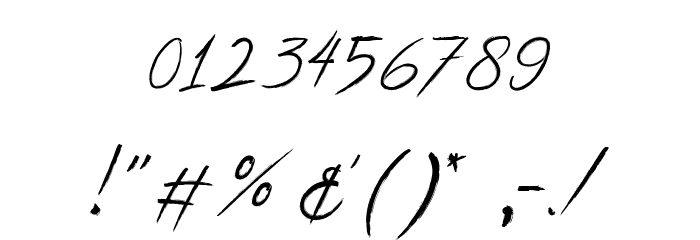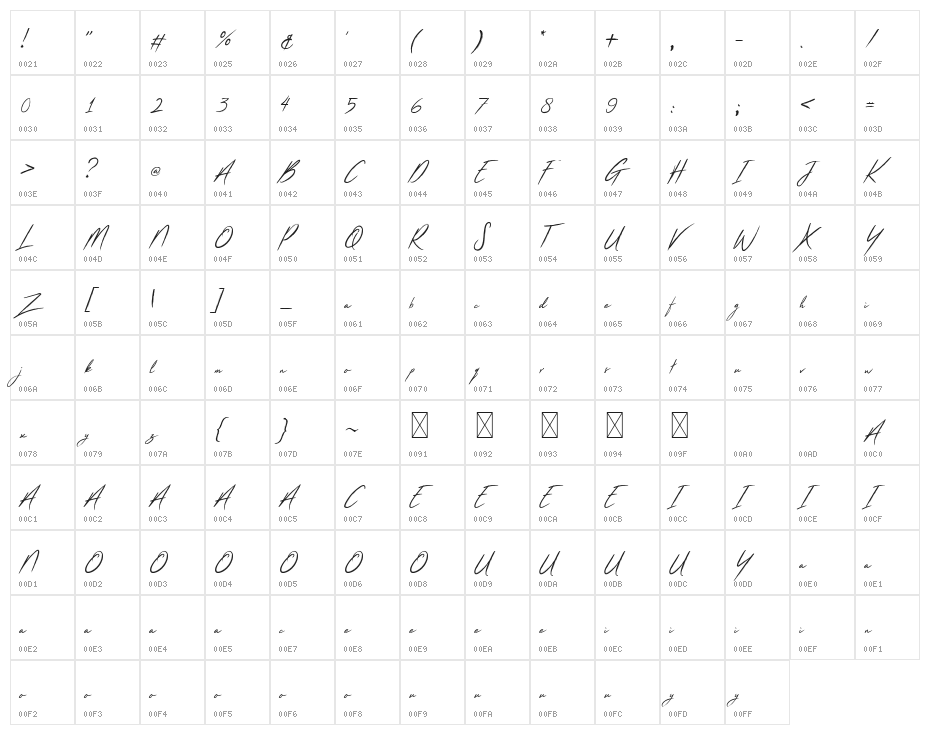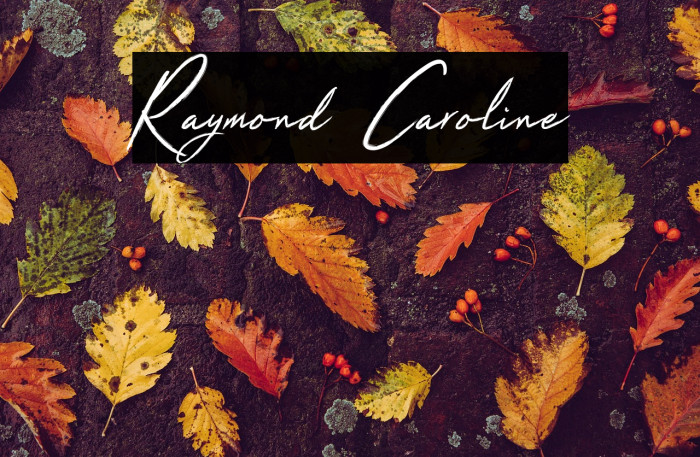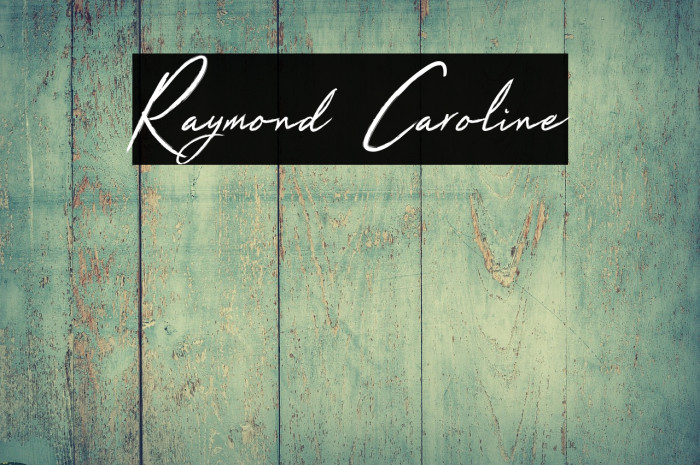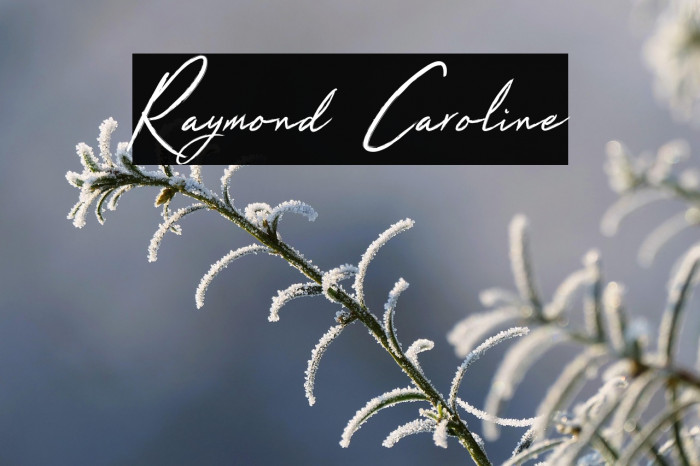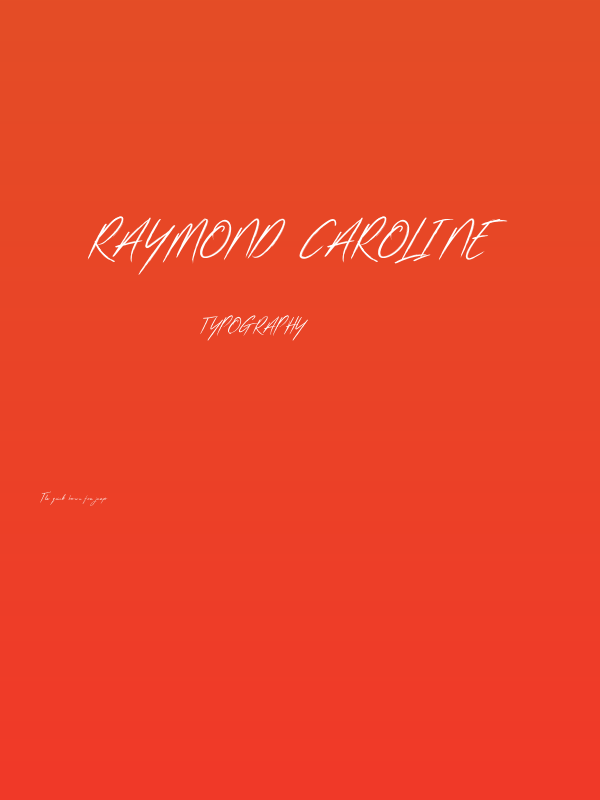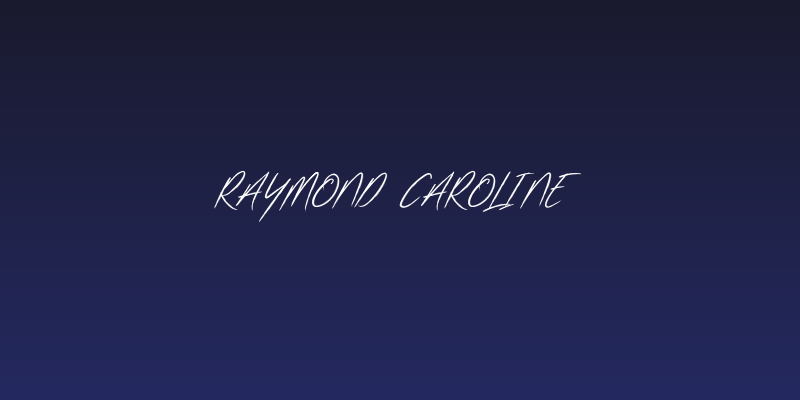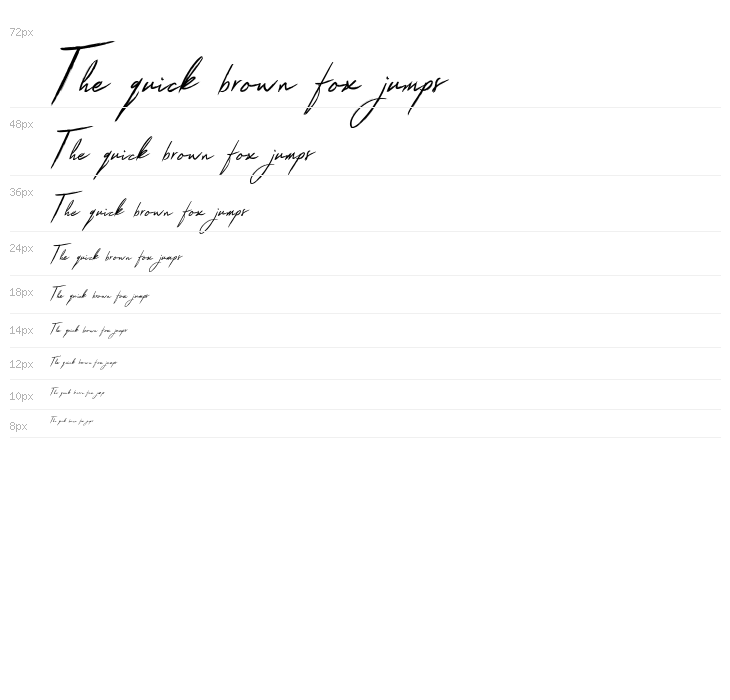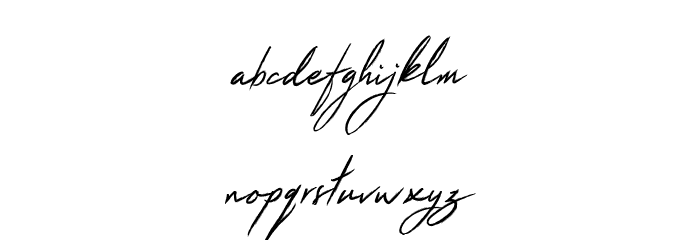
Raymond Caroline Font
Raymond Caroline Description
This font exudes a dynamic and expressive style, characterized by its fluid, handwritten appearance. The letters are elegantly slanted, with a natural flow that mimics the strokes of a calligrapher's pen. The uppercase letters are bold and sweeping, while the lowercase letters maintain a delicate and refined touch. Numbers and special characters are crafted with the same artistic flair, ensuring consistency throughout. The overall design is both sophisticated and approachable, making it suitable for a variety of creative applications.
| Proposed Projects | Ideal for wedding invitations, personal branding, artistic projects, and greeting cards. |